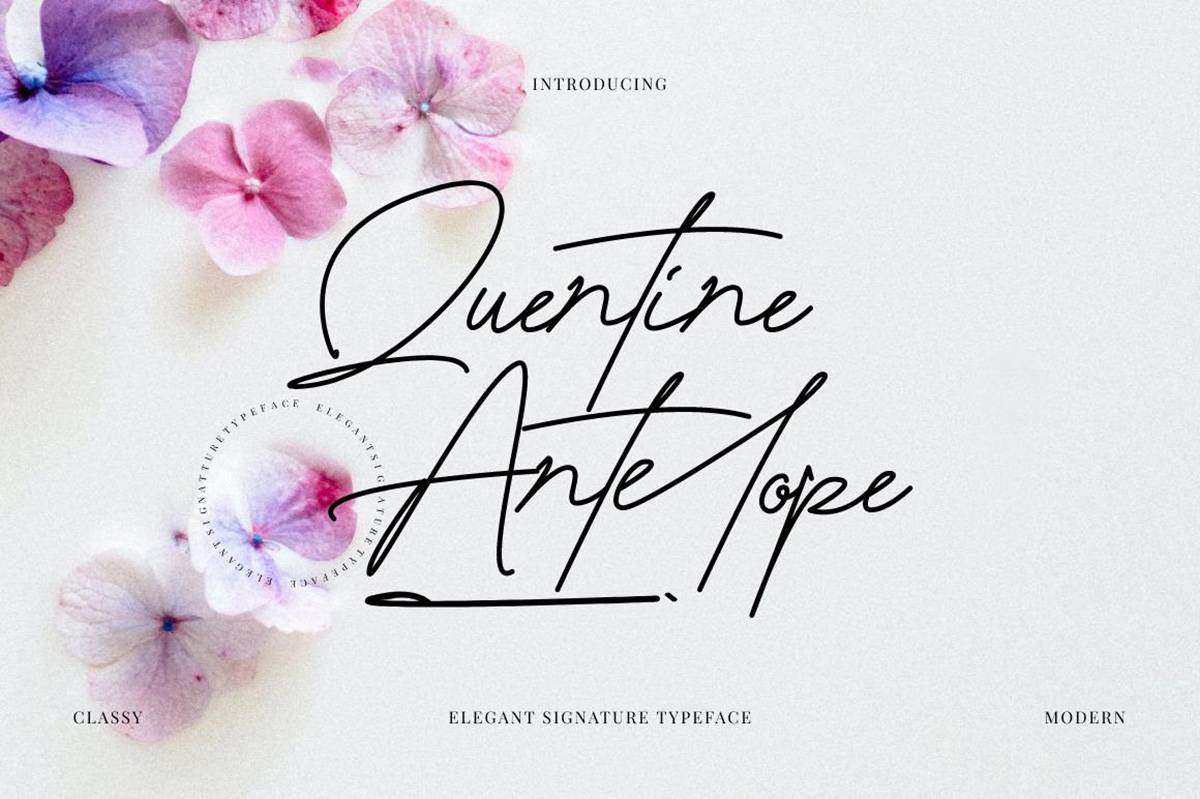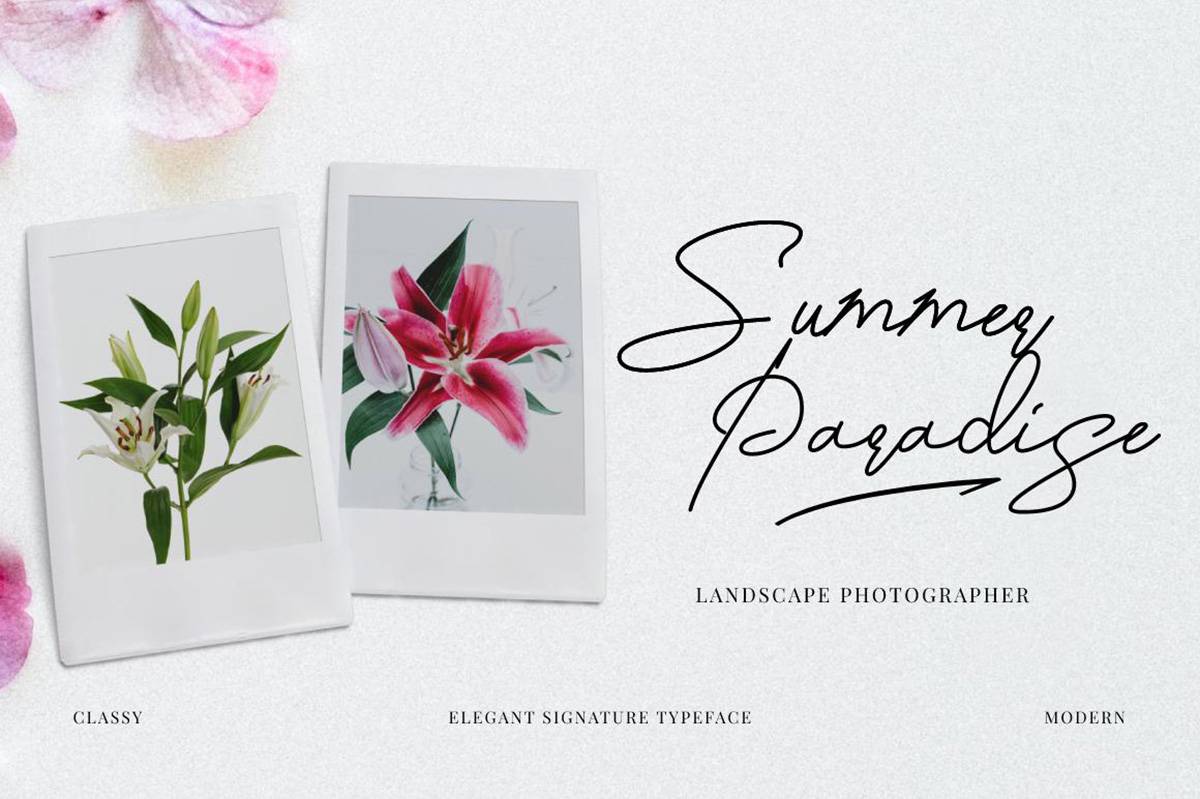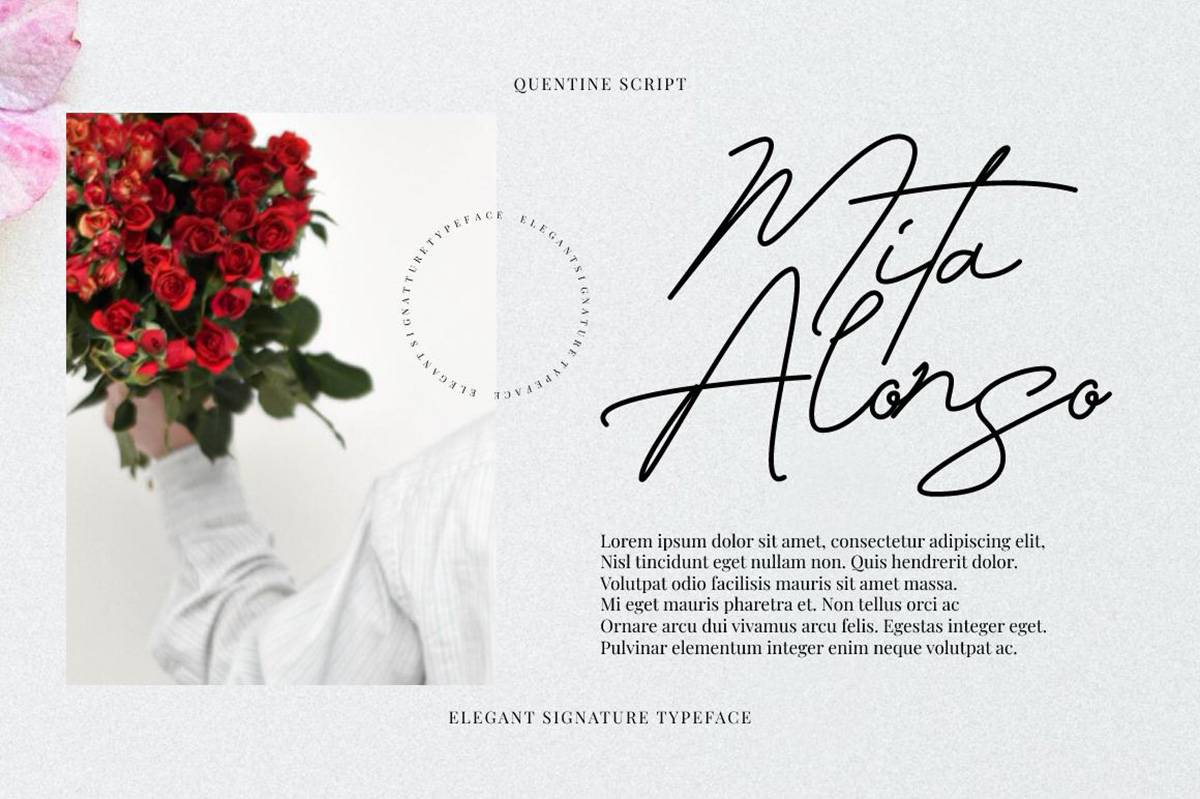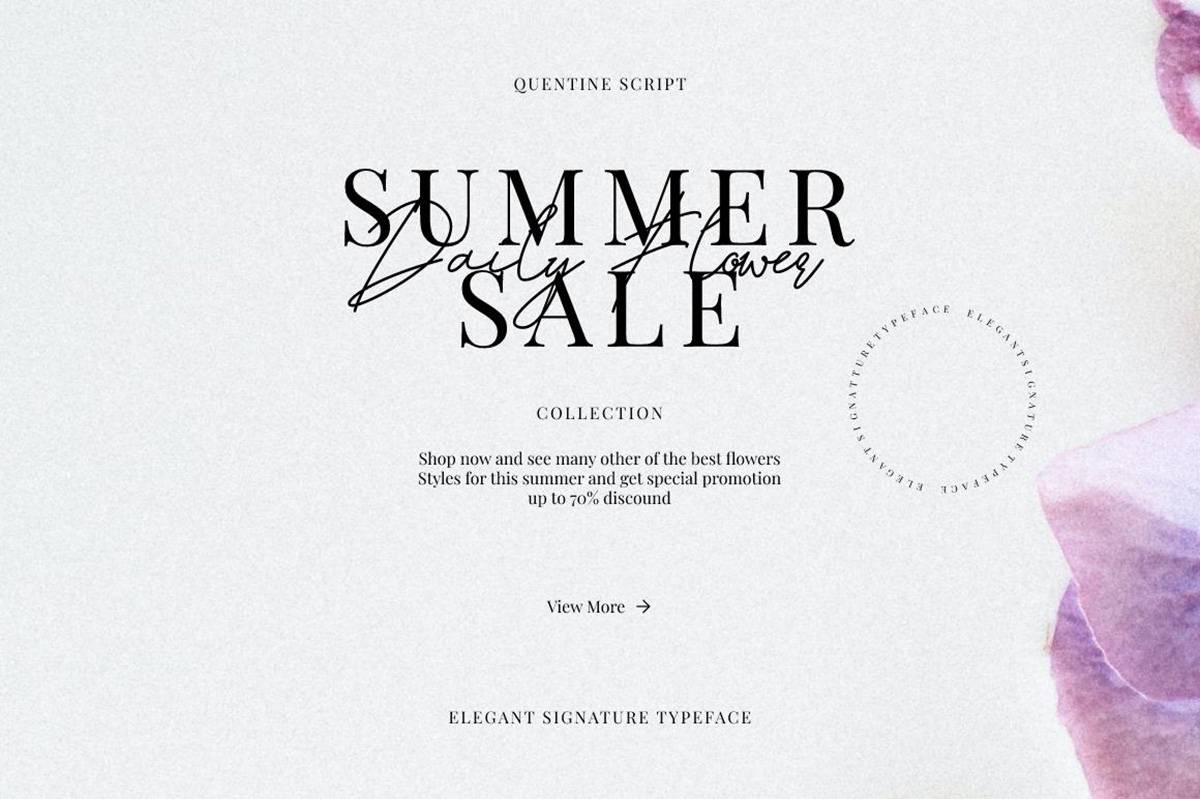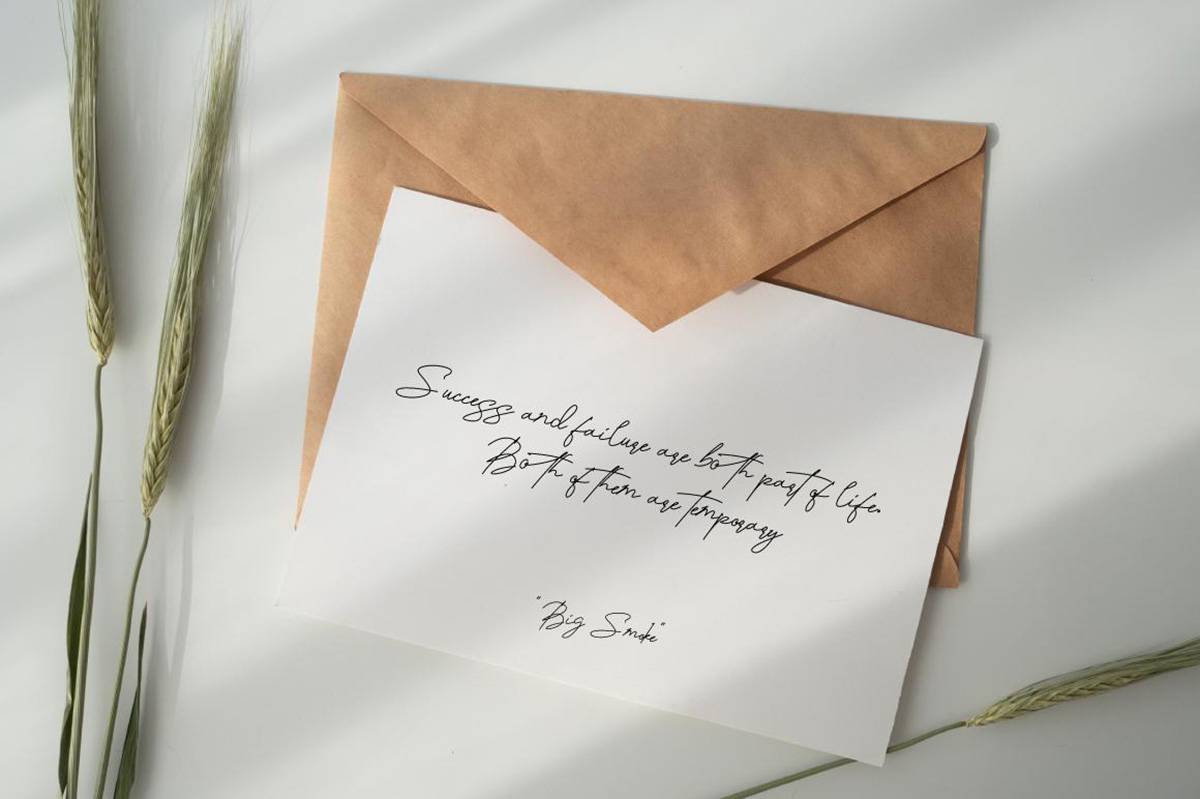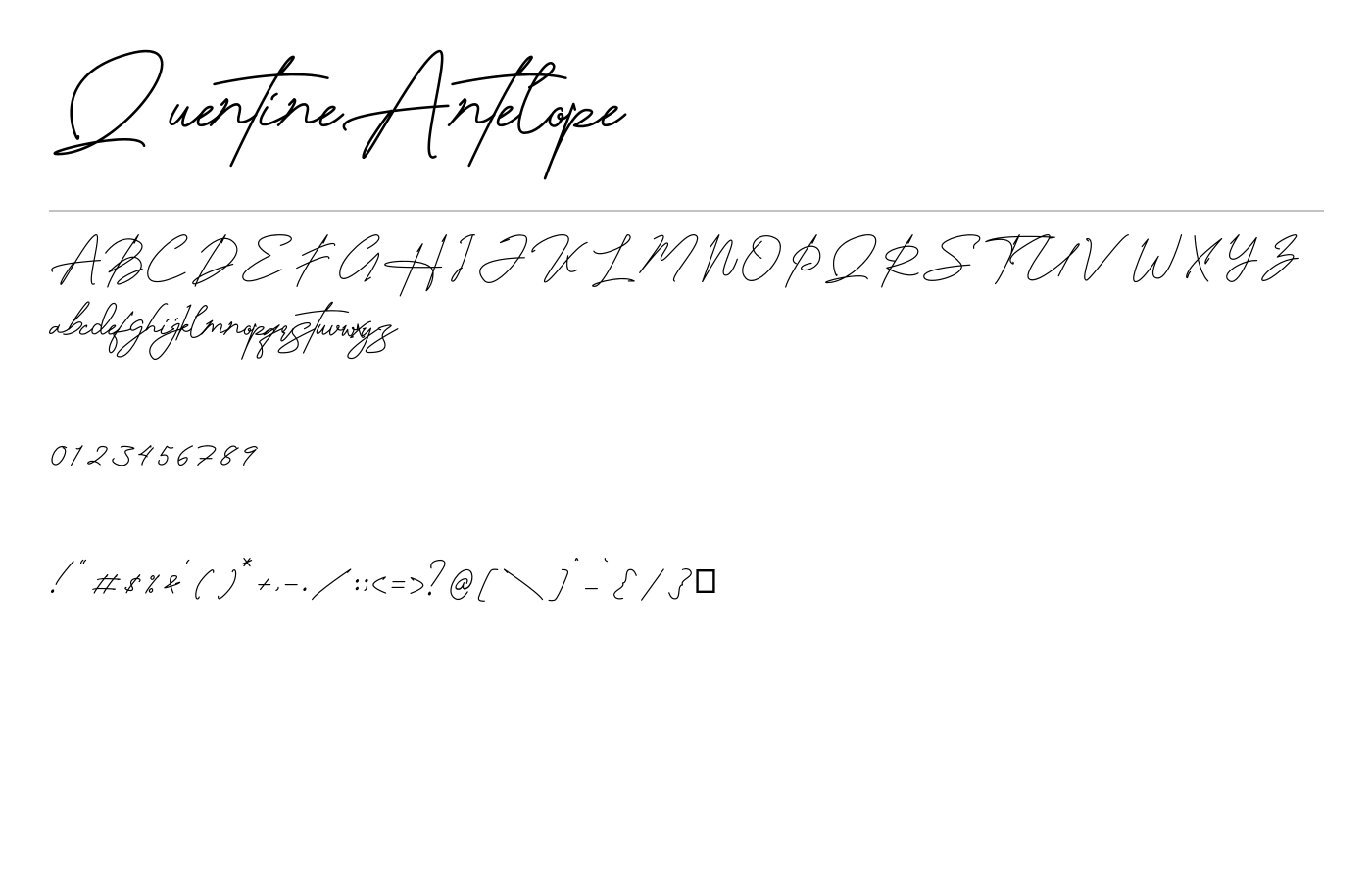
Quentine Antelope is a delicate, handwritten script font characterized by slender, flowing strokes that evoke a sophisticated and elegant handwritten signature. Its light weight and airy letterforms make it ideal for fashion, luxury branding, invitations, and any design seeking a personal, refined, and graceful touch. This font works best in headlines or logos where its unique, artistic style can shine without sacrificing readability.
Quentine Antelope Font
About Quentine Antelope Font
| Font family | Quentine Antelope Font |
| Designer | Alfin Nedi |